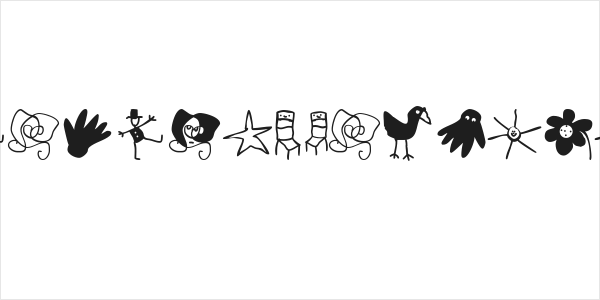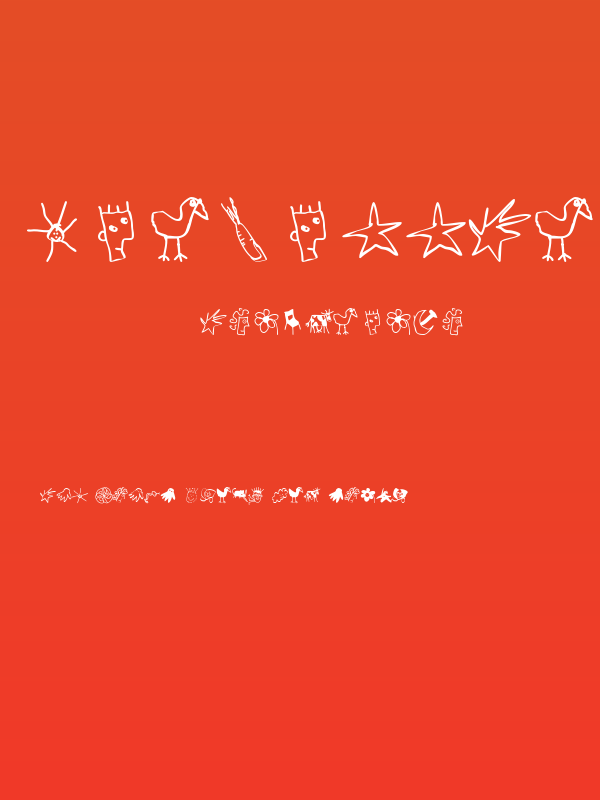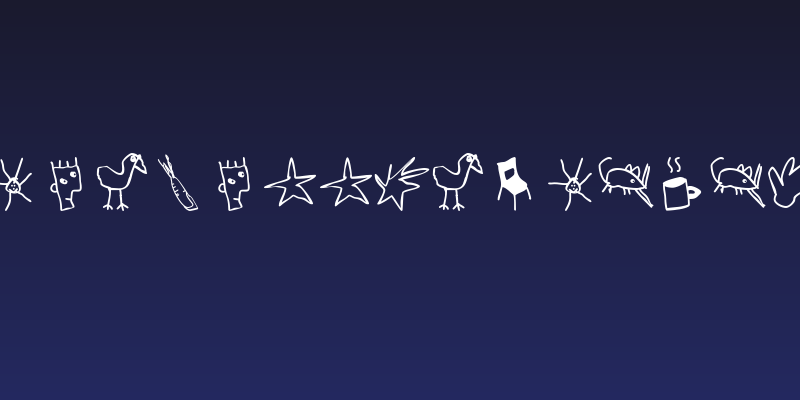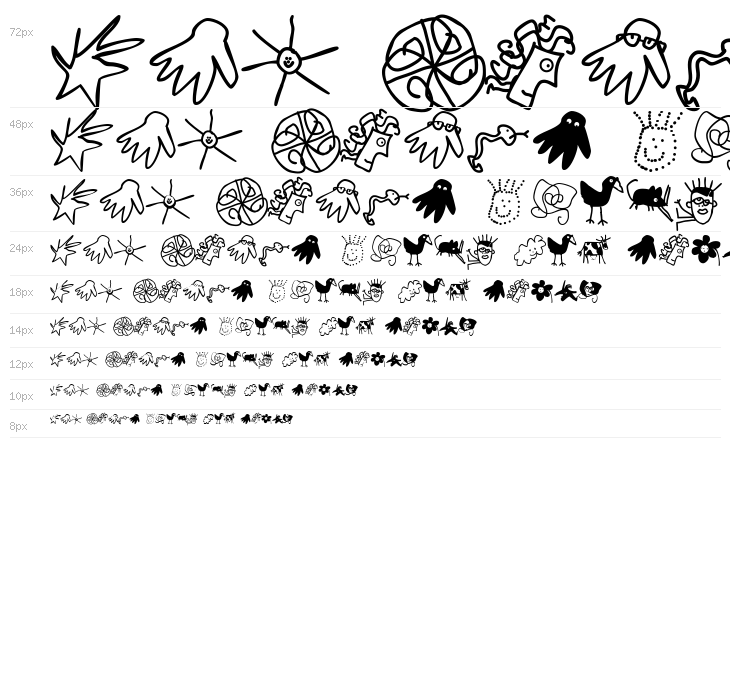
KarlasStrokemen Font
KarlasStrokemen Description
This font is a playful and whimsical collection of hand-drawn doodles and characters. Each symbol is unique, featuring quirky illustrations such as stick figures, animals, and abstract shapes. The style is reminiscent of child-like drawings, with a sense of spontaneity and creativity. The characters are bold and expressive, with varying line thicknesses that add to the dynamic feel. This font is not designed for traditional text but rather for decorative purposes, offering a fun and artistic touch to any project.
| Use Case | Logos, Decorative elements |
| Proposed Projects | Ideal for children's books, playful invitations, creative posters, and artistic projects. |